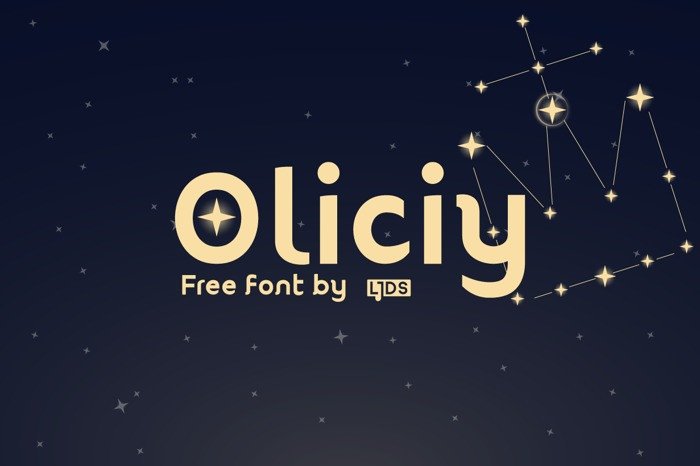
Oliciy Font
Oliciy Sans Serif Font comes in uppercase, lowercase, punctuations, numerals, symbols, web symbols, and multilingual support. Great for any titled or branded project.
The goal of this font was to embody the bold, elegant, and scientific aura of the Oliciy in one typeface. Anybody who needs this embodied in their work would do well to work with Oliciy Sans Serif.